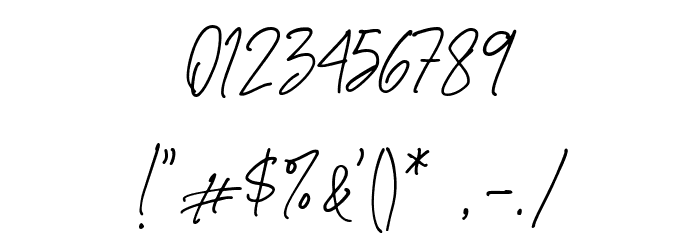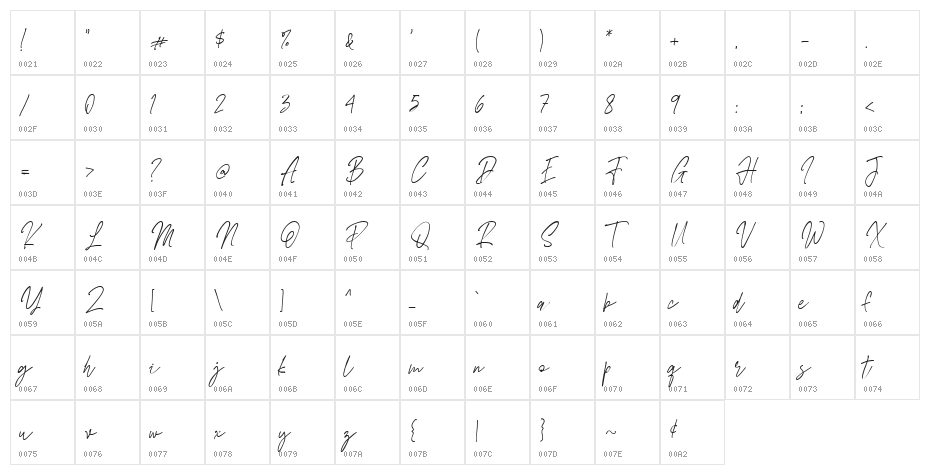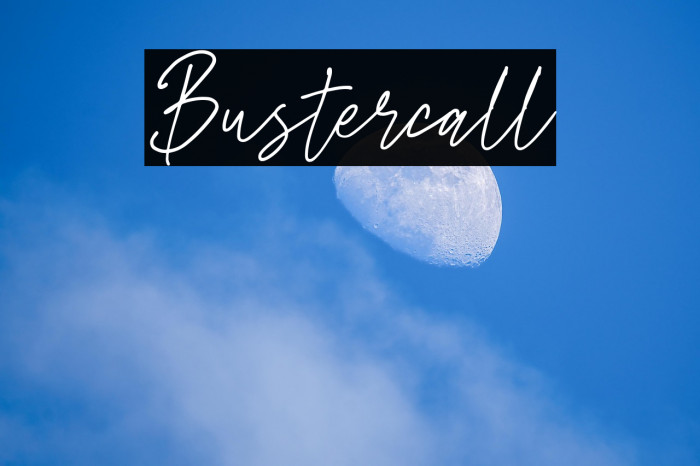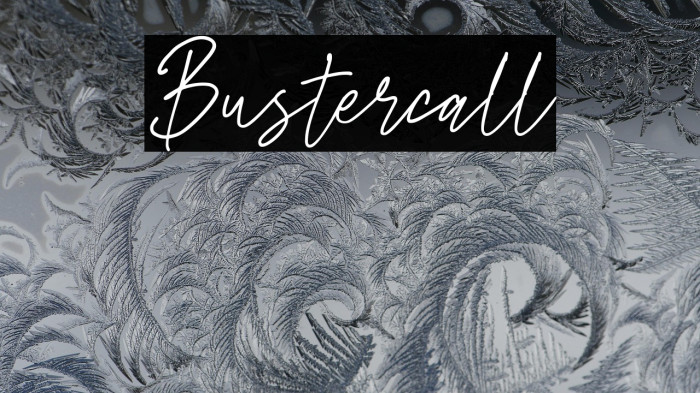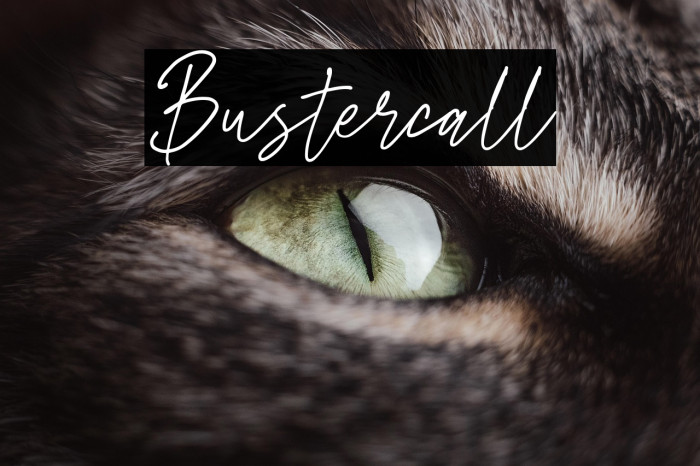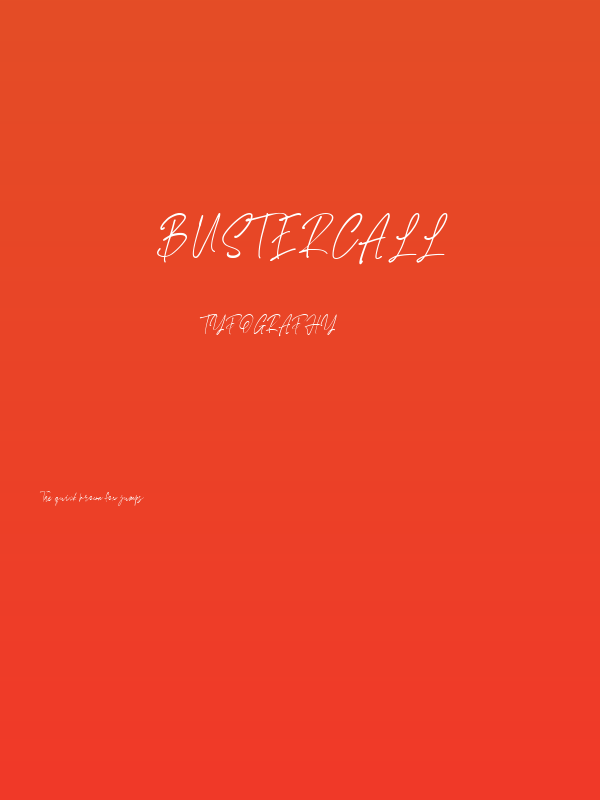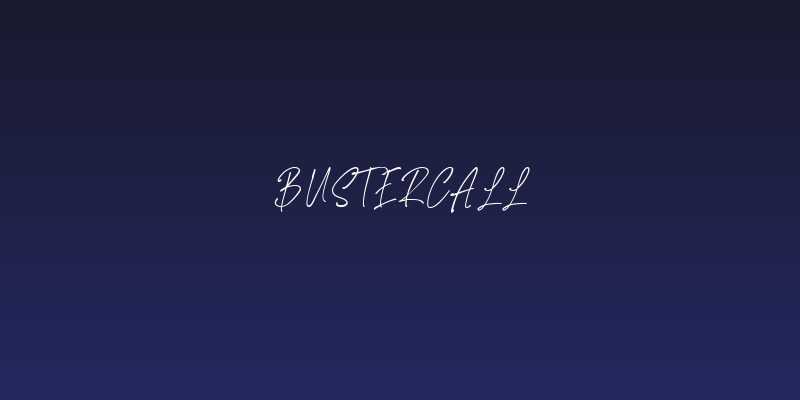
Bustercall Font
Bustercall Description
This font exudes a casual elegance with its flowing, cursive style that mimics natural handwriting. Each letter is crafted with smooth, continuous strokes that give it a fluid and dynamic appearance. The uppercase letters are slightly more elaborate, featuring subtle loops and curves, while the lowercase letters maintain a simpler, more straightforward design. The numerals and special characters are consistent with the overall style, offering a cohesive look. This font is perfect for projects that require a personal touch, such as invitations, greeting cards, or branding materials that aim to convey a sense of warmth and approachability.
| Overall Style | Casual, Elegant |
| Proposed Projects | Ideal for invitations, greeting cards, personal branding, and any project needing a personal touch. |